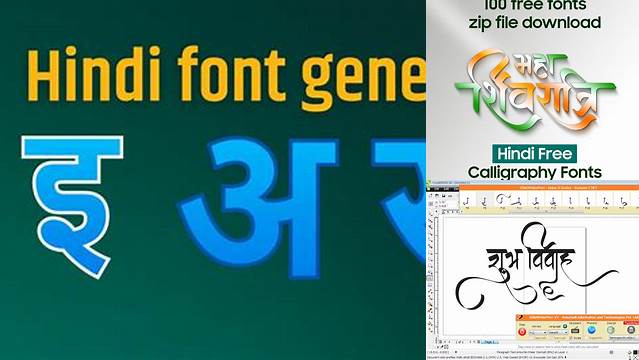
Hindi Font Generator: Free & Online!
Introduction to Hindi Font Generators
Hey guys! Ever needed to jazz up your Hindi text with a cool, unique font? That's where a Hindi font generator comes in handy! These nifty online tools let you transform plain Hindi text into something eye-catching and stylish. Whether you're working on a presentation, designing a poster, or just want to add some flair to your social media posts, a good font can make all the difference. These generators are often free and super easy to use, even if you're not a tech whiz. You just type in your text, pick a font you like, and voilà ! You've got beautifully styled Hindi text ready to go. It's all about making your message stand out, and a creative font is a fantastic way to do just that. So, get ready to explore the world of Hindi font generators and unleash your inner designer!
Benefits of Using an Online Hindi Font Generator
So, why should you even bother using an online Hindi font generator? Well, there are tons of reasons! First off, it's a massive time-saver. Instead of manually searching for and downloading fonts, you can preview and apply them instantly. Plus, most of these generators are completely free, which is always a win. You don't need to be a design expert to use them either; they're designed to be super user-friendly. Think about it: creating engaging content is crucial, and a unique font can grab attention and make your message more memorable. From sprucing up your social media posts to creating stunning graphics for your website, the possibilities are endless. Plus, it’s a fun way to experiment with different styles and see what resonates with your audience. It is important to make your posts stand out and these online tools can help you achieve that.
How to Choose the Best Hindi Font Generator
Alright, so you're sold on the idea of using a Hindi font generator, but how do you pick the right one? With so many options out there, it can feel a bit overwhelming. First, consider what you need the font for. Are you creating a formal document, or is it for a fun, quirky social media post? Some generators offer a wider variety of styles than others. Look for a generator that has a good selection of Hindi fonts, from traditional to modern. User-friendliness is also key; you don't want to spend hours trying to figure out how to use it. Make sure the interface is clean and intuitive. And of course, check if it's free! While some generators offer premium features for a fee, there are plenty of excellent free options available. It's also a good idea to read reviews or ask for recommendations from other users to get a sense of which generators are the most reliable and effective. It's absolutely essential to choose a font that makes you content pop.
Free Hindi Font Generator Websites
Looking for some free Hindi font generator websites? You're in luck! There are plenty of great options out there that won't cost you a dime. Many websites offer a range of Hindi fonts that you can use for personal and commercial projects. These platforms often have a simple interface where you can type your text and preview different font styles. Some popular choices include websites that specialize in Indian language fonts and design resources. It's always a good idea to explore a few different sites to see which one has the fonts and features that best suit your needs. And remember, just because they're free doesn't mean they're low quality! Many of these sites offer high-quality fonts that can help you create stunning designs. It is also beneficial to look for sites that offer a preview of the font before you download it, ensuring it meets your expectations. Do not underestimate how important the font is to grabbing your audience's attention.
Online Hindi Font Converter Tools
Okay, so you've got some Hindi text, but it's in a format that's not quite right. That's where online Hindi font converter tools come in! These tools let you convert your text from one format to another, ensuring that it displays correctly on different devices and platforms. For example, you might need to convert text from Unicode to Kruti Dev or vice versa. These converters are usually super easy to use: you just paste in your text, select the input and output formats, and click convert. It's a quick and painless way to ensure that your Hindi text looks exactly the way you want it to, no matter where it's being viewed. It is important to find a tool that is both reliable and user-friendly, saving you time and frustration. Also, some converters offer additional features like batch conversion, which can be a huge time-saver if you have a lot of text to process. Using these tools will make your life so much easier.
Different Styles of Hindi Fonts Available
When it comes to Hindi fonts, you've got a whole world of styles to choose from! Whether you're looking for something traditional, modern, elegant, or playful, there's a font out there that's perfect for your project. Traditional Hindi fonts often feature classic letterforms and a sense of timelessness. Modern fonts, on the other hand, might incorporate sleek lines and contemporary design elements. There are also decorative fonts that are perfect for adding a touch of flair and personality to your designs. Some fonts are designed to be highly legible, while others are more focused on aesthetics. Experiment with different styles to see what resonates with your message and target audience. The right font can make all the difference in conveying the tone and feel of your content. With so many options available, you're sure to find the perfect font to bring your vision to life. It is absolutely essential to choose the right one. There is a font for every project, I guarantee it!
Using Hindi Fonts in Graphic Design
Hindi fonts can add a unique and authentic touch to your graphic designs. Whether you're creating a poster, a logo, or a social media graphic, the right Hindi font can help you connect with your target audience and convey your message effectively. When using Hindi fonts in graphic design, consider the overall style and tone of your design. A traditional font might be perfect for a cultural event, while a modern font might be better suited for a tech company. Pay attention to the legibility of the font, especially if you're using it for body text. And don't be afraid to experiment with different font combinations to create a visually appealing and engaging design. Incorporating Hindi fonts into your graphic design projects can help you stand out from the crowd and create a truly unique visual identity. It is important to make sure your content is high quality and choosing the right font is crucial. Make sure your content pops.
Hindi Font Generator Apps for Mobile
Want to create stylish Hindi text on the go? There are several Hindi font generator apps available for your mobile device! These apps allow you to create eye-catching text designs directly from your smartphone or tablet. Many of these apps offer a variety of Hindi fonts, as well as customization options like text size, color, and background. Some apps also include pre-designed templates that you can use to quickly create stunning graphics. Whether you're creating social media posts, designing invitations, or just want to add some flair to your messages, these apps make it easy to create beautiful Hindi text wherever you are. Plus, they're often free to download and use, making them a convenient and affordable way to enhance your mobile content. Do not underestimate the power of convenience, these apps will make your life easier.
Tips for Creating Attractive Hindi Text Designs
Creating attractive Hindi text designs involves more than just picking a cool font. Here are a few tips to help you create designs that truly stand out. First, consider your target audience and the message you want to convey. Choose a font that reflects the tone and style of your content. Pay attention to the spacing between letters and lines to ensure that your text is legible and easy to read. Use color strategically to highlight important words or phrases. And don't be afraid to experiment with different layouts and design elements to create a visually appealing composition. Remember, the goal is to create a design that is both beautiful and effective in communicating your message. With a little creativity and attention to detail, you can create Hindi text designs that capture attention and leave a lasting impression. It is absolutely essential to make a good impression on your audience, it could make or break you.
Understanding Hindi Typography Basics
To truly master Hindi font design, it's helpful to understand some of the basics of Hindi typography. Hindi typography involves understanding the nuances of the Devanagari script, including the shapes and forms of the letters, the way they connect, and the overall rhythm and flow of the text. Pay attention to the matras (vowel signs) and how they interact with the consonants. Consider the weight and contrast of the font, and how it affects the legibility and readability of the text. By understanding these basic principles, you can make more informed decisions about font selection and layout, and create Hindi text designs that are both visually appealing and easy to read. The better you understand the basics the better your content will be.
The Importance of Legibility in Hindi Fonts
When choosing Hindi fonts, legibility should be a top priority. After all, what's the point of a beautiful font if no one can read it? Legibility refers to how easy it is to distinguish individual letters and words. Factors that affect legibility include the size and spacing of the letters, the contrast between the text and the background, and the overall complexity of the font design. Choose fonts that are clear and easy to read, even at small sizes. Avoid fonts with overly ornate or decorative elements that can distract from the text. Remember, the goal is to communicate your message effectively, and legibility is key to achieving that goal. Nobody wants to look at an unreadable mess of text.
Mixing and Matching Hindi Fonts
Want to add some visual interest to your Hindi designs? Try mixing and matching different fonts! Combining different fonts can create a dynamic and engaging look, but it's important to do it carefully. Start by choosing one font for your headings and another for your body text. Look for fonts that complement each other in terms of style and weight. Avoid using too many different fonts, as this can create a cluttered and confusing design. A good rule of thumb is to stick to two or three fonts at most. Experiment with different combinations to see what works best for your project. When done well, mixing and matching fonts can add personality and flair to your Hindi text designs. Mixing and matching can be fun but be careful not to overdo it.
Creating Hindi Font Logos
Hindi fonts can be a great choice for creating logos that are both unique and culturally relevant. When designing a logo with Hindi fonts, consider the overall brand identity and the message you want to convey. Choose a font that reflects the personality of your brand, whether it's traditional, modern, playful, or sophisticated. Pay attention to the kerning and spacing of the letters to ensure that the logo is visually balanced and easy to read. Use color strategically to create a memorable and impactful design. And don't be afraid to experiment with different layouts and design elements to create a logo that truly stands out. A well-designed logo with Hindi fonts can help you connect with your target audience and create a strong brand identity. Remember that your logo is your brand so make it count.
The Role of Unicode in Hindi Font Generation
Unicode plays a crucial role in Hindi font generation and display. Unicode is a universal character encoding standard that assigns a unique code point to every character in every language. This allows computers to display text correctly, regardless of the operating system, software, or font being used. When generating Hindi fonts, it's important to ensure that they are Unicode-compliant. This means that each character in the font must be mapped to the correct Unicode code point. Using Unicode fonts ensures that your Hindi text will be displayed correctly on all devices and platforms, making it accessible to a wider audience. You can't go wrong with Unicode.
Exploring Traditional Hindi Calligraphy Styles
Traditional Hindi calligraphy is a beautiful and intricate art form that has been practiced for centuries. Exploring these styles can provide inspiration for your own Hindi font designs. Some popular Hindi calligraphy styles include Devanagari, Kaithi, and Modi. Each style has its own unique characteristics and aesthetic qualities. Studying these styles can help you understand the nuances of the Devanagari script and develop a deeper appreciation for the art of Hindi typography. You can even try incorporating elements of traditional calligraphy into your own font designs to create a unique and authentic look. Don't be afraid to take a little inspiration from the past to make something new.
Modern Trends in Hindi Font Design
Modern Hindi font design is constantly evolving, with new trends and styles emerging all the time. Some popular trends include geometric fonts, minimalist fonts, and hand-drawn fonts. These trends reflect a desire for clean, contemporary designs that are both visually appealing and easy to read. Designers are also experimenting with different font weights, styles, and combinations to create unique and expressive typography. Keeping up with these trends can help you create Hindi font designs that are fresh, relevant, and engaging. Trends are what keep designs fresh so keep up with them.
Creating Hindi Fonts for Web Design
When creating Hindi fonts for web design, there are a few special considerations to keep in mind. First, you need to ensure that the fonts are optimized for web use. This means using a format that is supported by web browsers, such as WOFF or WOFF2. You also need to ensure that the font files are small in size to minimize loading times. Consider using web font services like Google Fonts or Adobe Fonts, which offer a wide selection of Hindi fonts that are optimized for web use. And always test your fonts on different browsers and devices to ensure that they display correctly. You can't go wrong with Google Fonts.
Using Hindi Fonts in Video Editing
Adding Hindi text to your videos can help you connect with a wider audience and create more engaging content. When using Hindi fonts in video editing, choose fonts that are clear, legible, and visually appealing. Consider the overall style and tone of your video, and choose fonts that complement the visuals. Use animation and transitions to add visual interest to your text. And always test your videos on different devices to ensure that the Hindi text displays correctly. Make sure to give your videos that extra pop to grab the audience's attention.
How to Copyright Your Hindi Font Design
If you've created a unique Hindi font design, you may want to consider copyrighting it to protect your intellectual property. Copyright protection gives you the exclusive right to use, distribute, and modify your font design. To copyright your font, you need to register it with the copyright office in your country. The process typically involves filling out an application form and submitting a copy of your font design. Keep in mind that copyright protection only applies to the design of the font itself, not to the underlying idea or concept. Protecting your hard work with a copyright is always a good idea.
Common Mistakes to Avoid When Using Hindi Fonts
Using Hindi fonts effectively requires attention to detail. One common mistake is choosing fonts that are not legible, making it difficult for readers to understand the text. Another mistake is using too many different fonts, which can create a cluttered and confusing design. Avoid using fonts that are not Unicode-compliant, as this can cause display issues on different devices. Pay attention to the kerning and spacing of the letters to ensure that the text is visually balanced. By avoiding these common mistakes, you can create Hindi text designs that are both beautiful and effective. It is absolutely essential to avoid these mistakes if you want to make high-quality content.
Future Trends in Hindi Font Technology
The future of Hindi font technology looks bright, with new innovations and developments on the horizon. One potential trend is the development of more advanced font rendering technologies that can improve the legibility and aesthetics of Hindi fonts. Another trend is the use of artificial intelligence to generate new and unique font designs. We may also see the development of more sophisticated font customization tools that allow users to create their own personalized fonts. As technology continues to evolve, we can expect to see even more exciting developments in the world of Hindi font design. The future is bright for Hindi font technology, so get excited.
The Impact of Hindi Fonts on Digital Communication
Hindi fonts play a significant role in digital communication, enabling people to express themselves and connect with others in their native language. By using Hindi fonts in their online content, businesses and organizations can reach a wider audience and build stronger relationships with their customers. Hindi fonts also help to preserve and promote the Hindi language and culture in the digital age. As more and more people access the internet, the importance of Hindi fonts in digital communication will only continue to grow. These fonts allow you to express yourself and reach a wider audience which is incredibly important.
Hindi Font Licensing: What You Need to Know
Before using a Hindi font in your project, it's important to understand the licensing terms. Font licenses specify how you are allowed to use the font, including whether you can use it for commercial purposes, whether you can modify it, and whether you can redistribute it. Some fonts are free for personal use but require a commercial license for business purposes. Other fonts are open-source, meaning that you are free to use, modify, and distribute them as you please. Always read the font license carefully before using a font to ensure that you are complying with the terms. You should always be aware of the legal stuff if you want to protect yourself.
Best Practices for Using Hindi Fonts in Marketing Materials
Using Hindi fonts in your marketing materials can help you connect with your target audience and create a strong brand identity. When using Hindi fonts in marketing, choose fonts that are clear, legible, and visually appealing. Consider the overall style and tone of your marketing campaign, and choose fonts that complement the message you want to convey. Use Hindi fonts strategically to highlight important words or phrases. And always test your marketing materials on different devices to ensure that the Hindi text displays correctly. By following these best practices, you can create marketing materials that are both effective and culturally relevant. The right font can make or break your marketing materials, so choose carefully.
Accessibility Considerations for Hindi Fonts
When using Hindi fonts, it's important to consider accessibility for users with disabilities. Choose fonts that are easy to read for people with visual impairments. Provide alternative text for images that contain Hindi text. Use sufficient contrast between the text and the background to improve legibility. And ensure that your website or application is compatible with screen readers and other assistive technologies. By considering accessibility, you can create a more inclusive and user-friendly experience for everyone. You should always consider accessibility when making content for the web.
The Future of Multilingual Font Design
The future of multilingual font design is focused on creating fonts that support a wide range of languages and scripts. This includes developing fonts that can accurately display complex scripts like Devanagari, which is used for Hindi. Designers are also working on creating fonts that are more adaptable to different cultural contexts and design styles. As the world becomes more interconnected, the demand for multilingual fonts will only continue to grow. The need to reach a wider audience will only increase as time goes on.
Resources for Learning More About Hindi Typography
Want to dive deeper into the world of Hindi typography? There are plenty of resources available to help you learn more! Online tutorials, books, and workshops can provide you with a solid foundation in the principles of Hindi typography. You can also explore online communities and forums to connect with other designers and learn from their experiences. Experimenting with different fonts and design techniques is also a great way to learn and improve your skills. With dedication and practice, you can become a master of Hindi typography. Practice makes perfect with Hindi typography.
Conclusion: Embracing the Beauty of Hindi Fonts
In conclusion, Hindi fonts offer a rich and diverse range of options for expressing yourself and connecting with others. Whether you're creating a logo, designing a website, or simply adding some flair to your social media posts, the right Hindi font can make all the difference. By understanding the principles of Hindi typography, exploring different font styles, and following best practices for font usage, you can create designs that are both beautiful and effective. So go ahead, embrace the beauty of Hindi fonts and let your creativity shine! These fonts allow you to connect with others in a way that few others can.